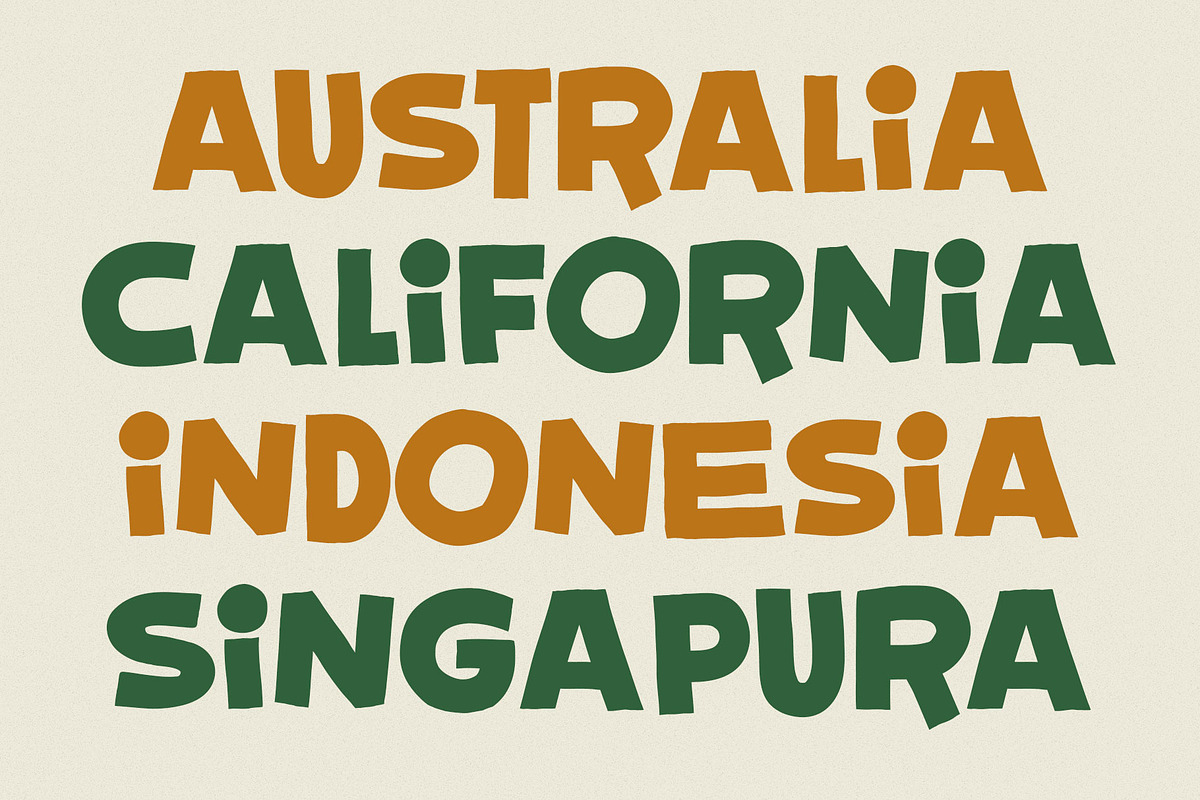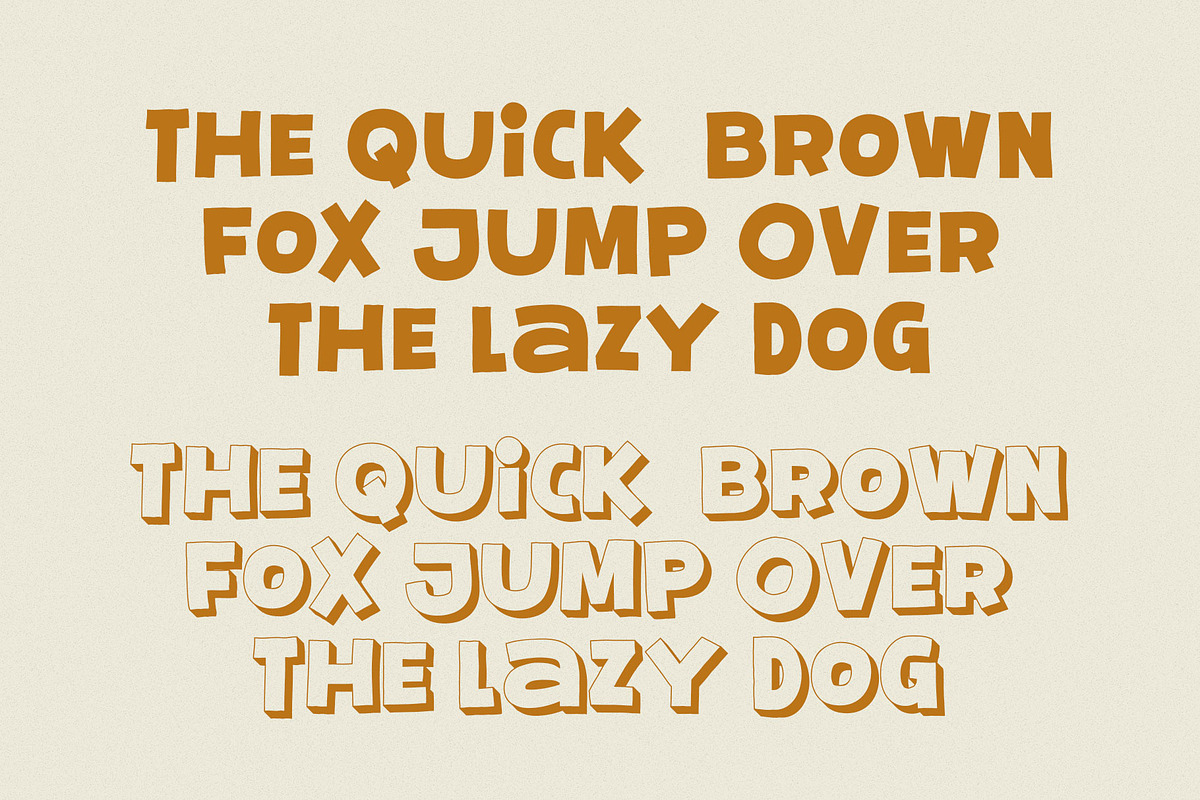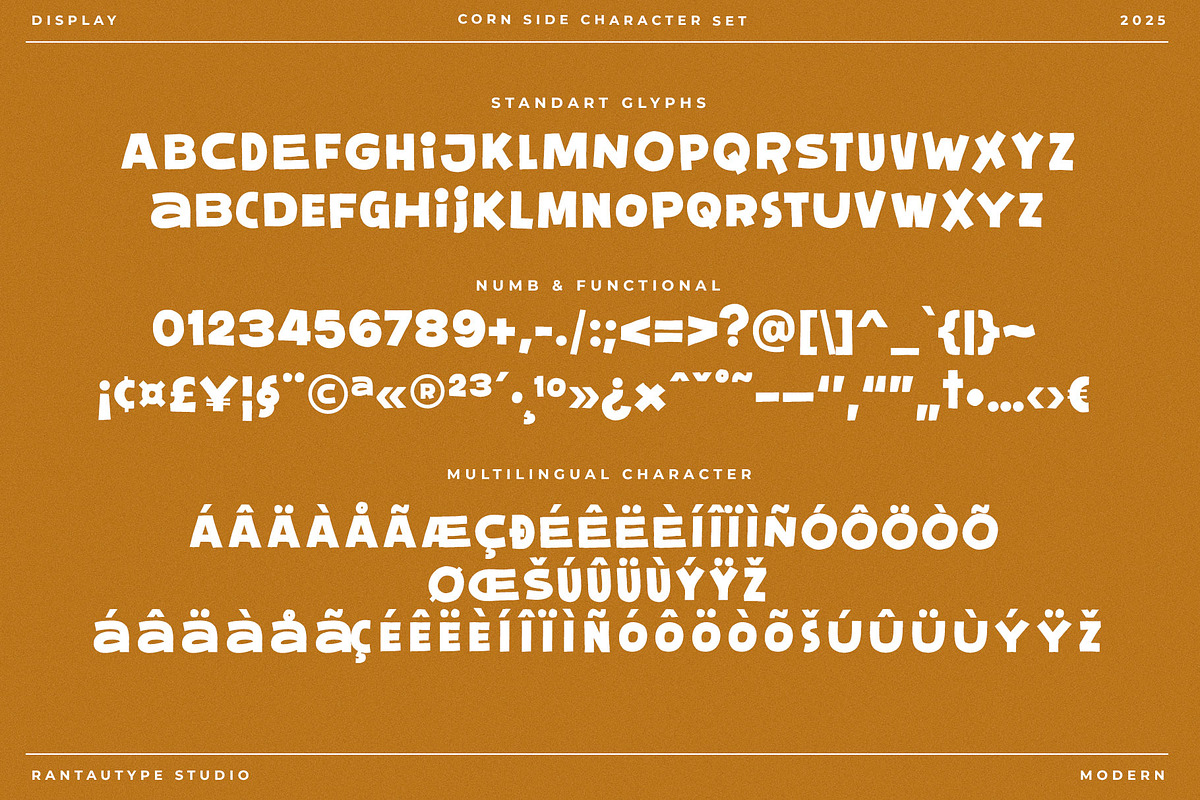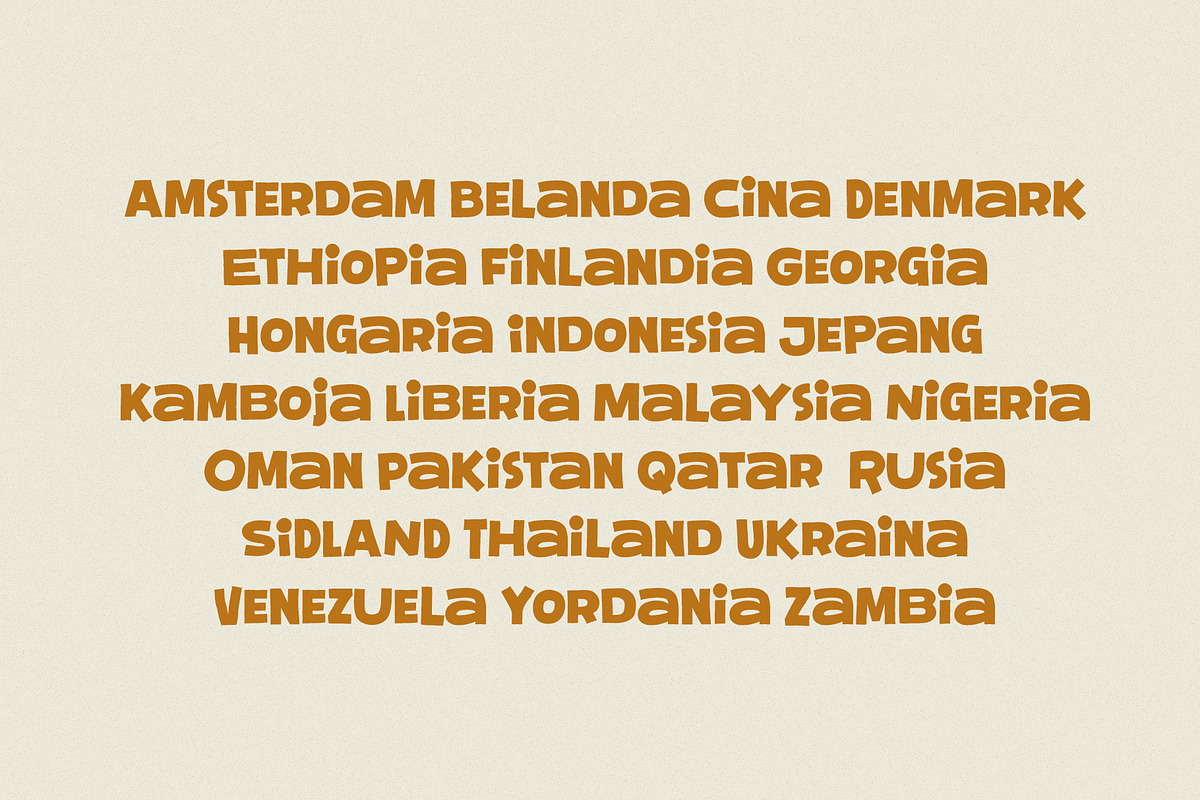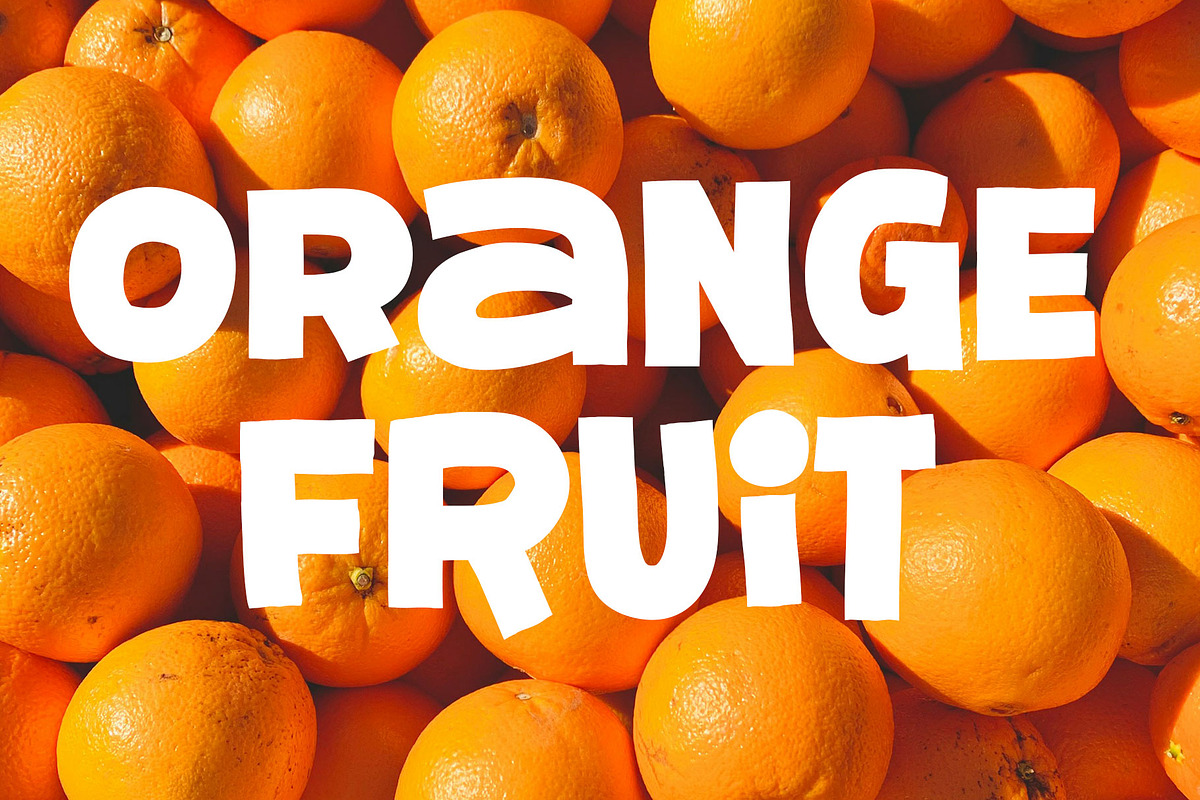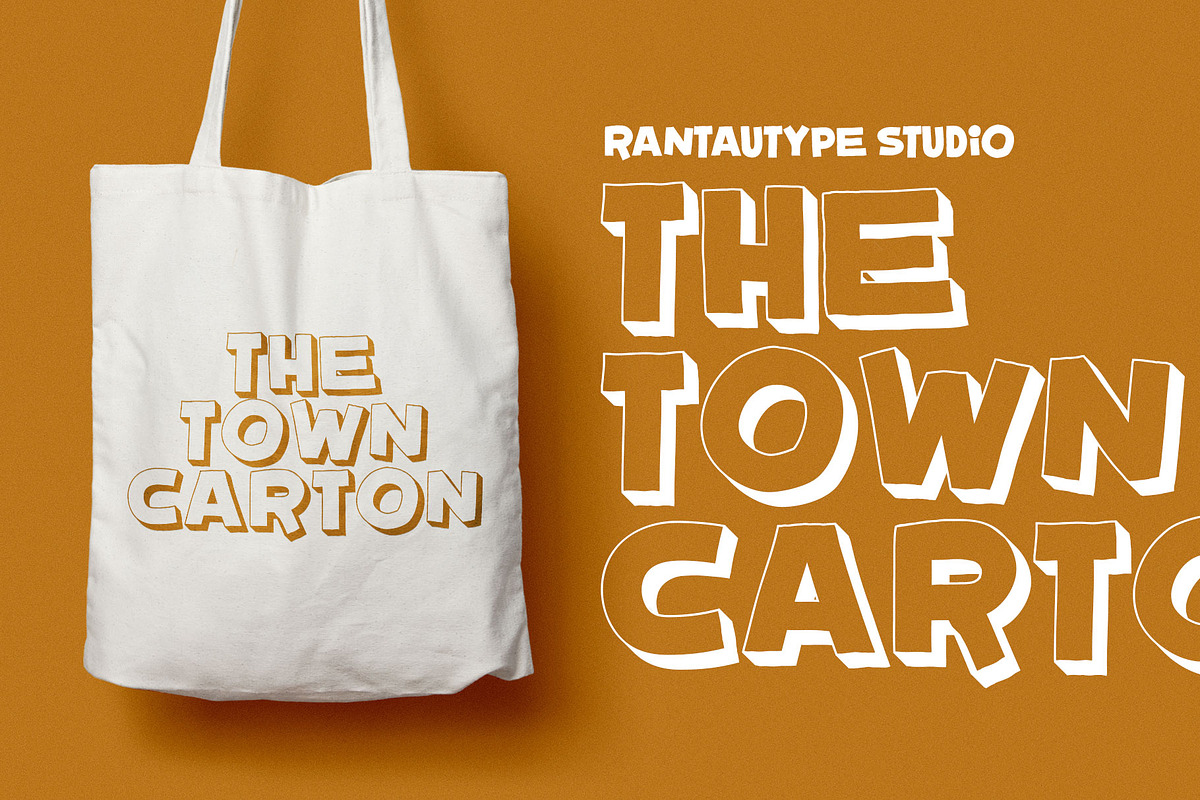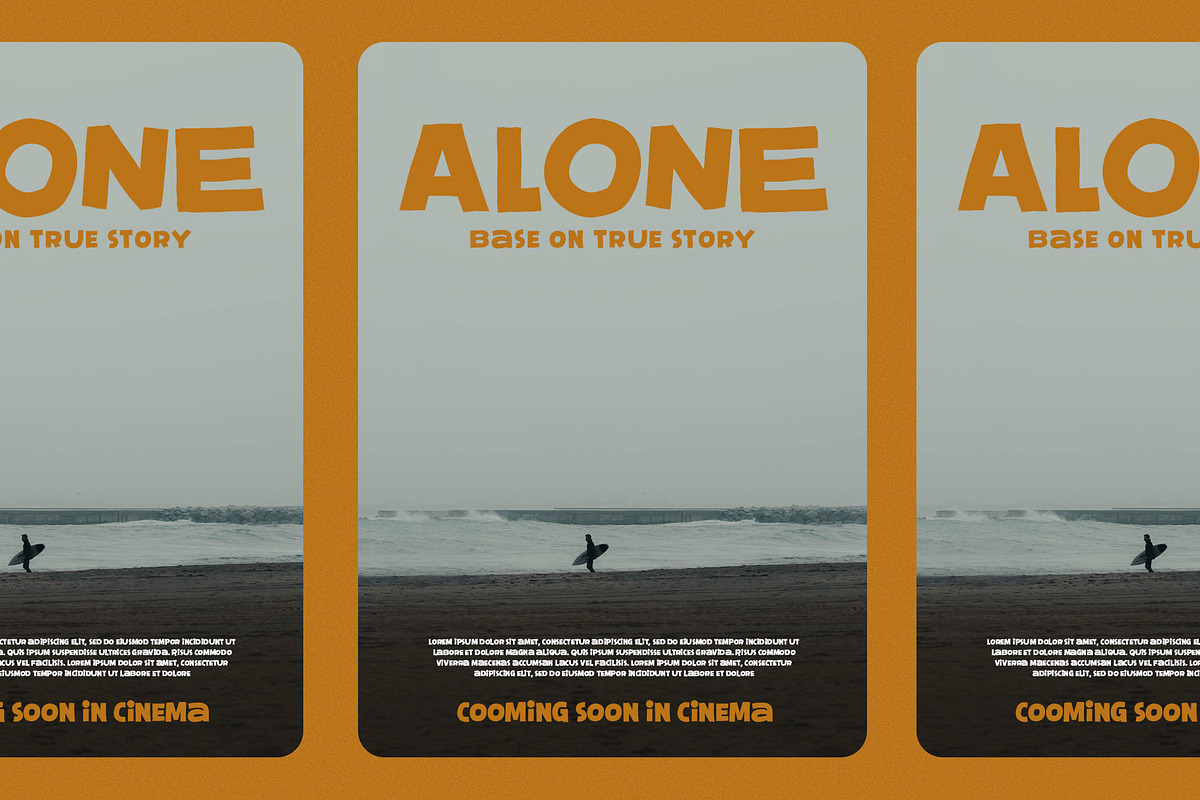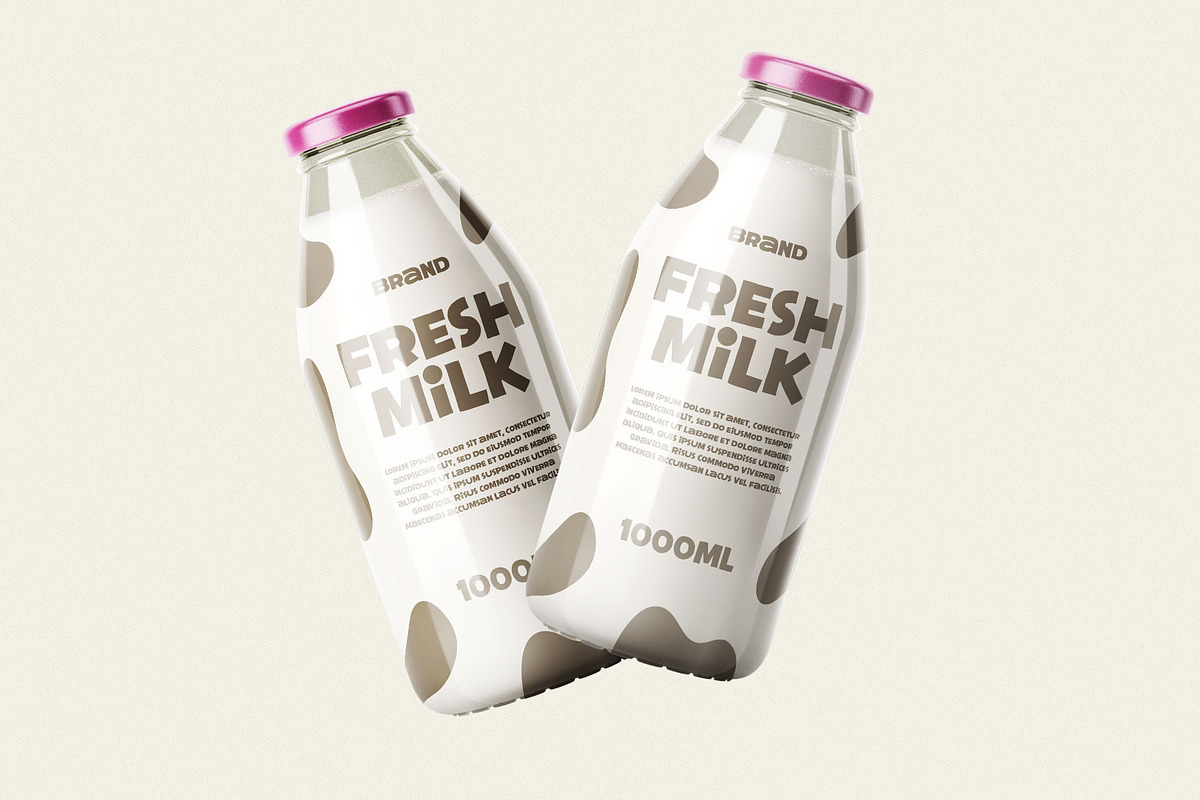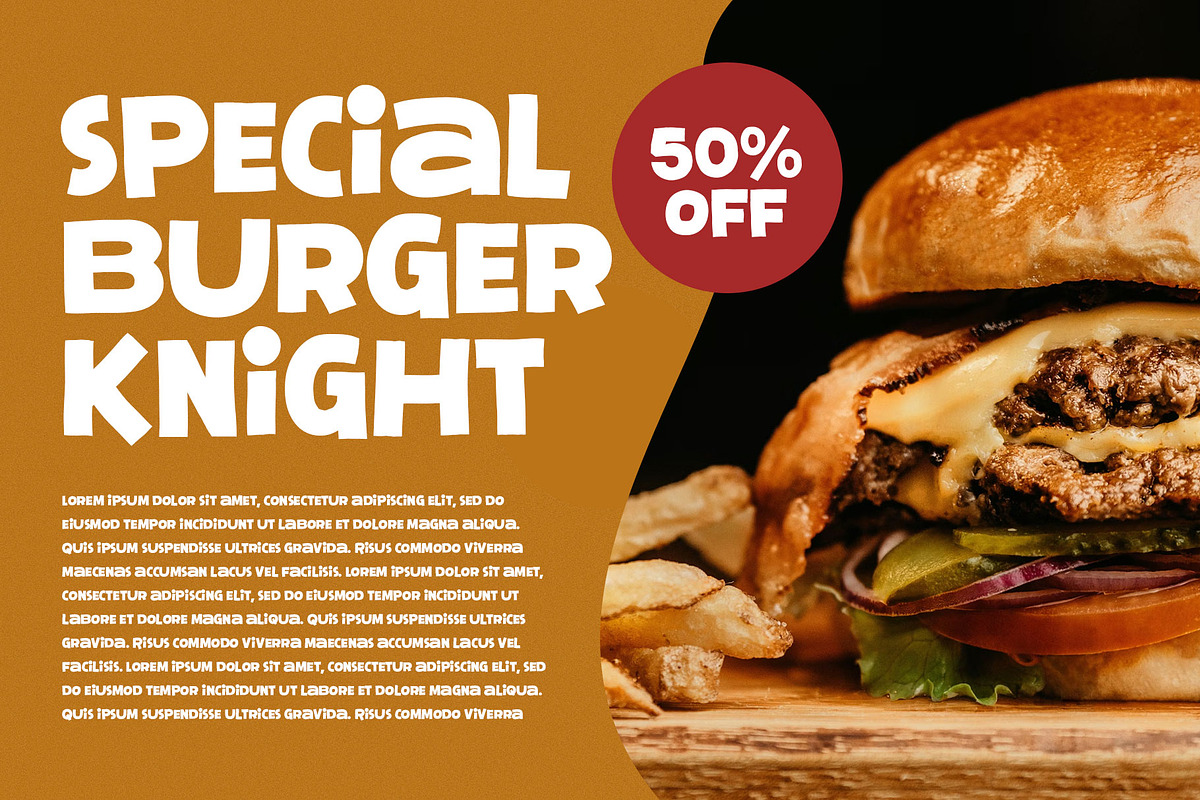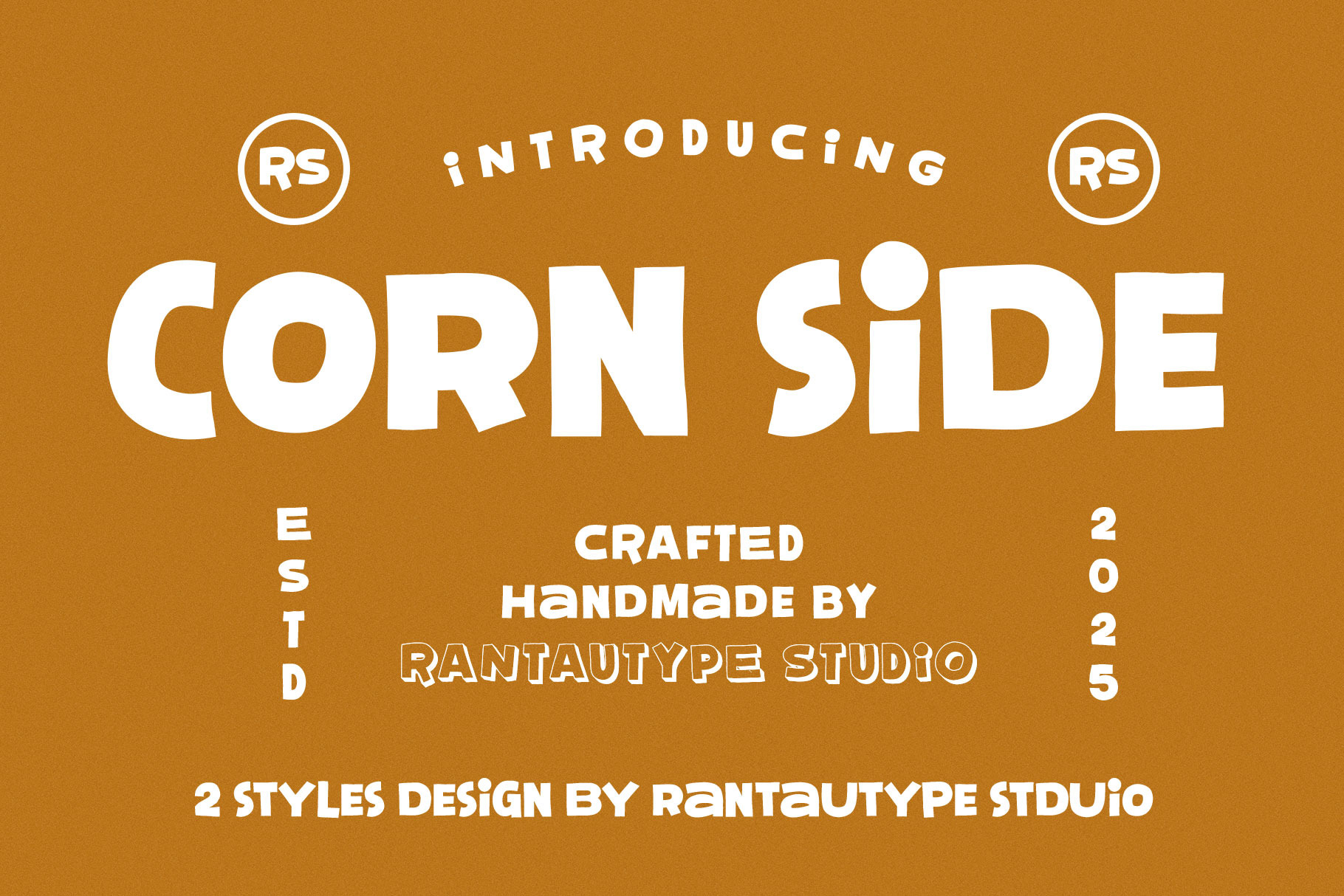
Corn Side Display Modern Font
Corn Side is modern display font made by rantautype studio. Corn Side is a perfectly choice for any creative endeavor, chic, lifestyle design such as logotype, advertisements, watermark on photography, stationery, branding project, display and magazine, invitation, corporate brand, product design, label, business project and many other project with funcy touch.
- Standart Glyphs
- Alternate and ligature
Fonts include Multilingual Character for: Afrikaans, Albanian, Asu, Basque, Bemba, Bena, Breton, Chiga, Cornish, Dutch, English, Estonian, Filipino, Finnish, Friulian, Galician, Gusii, Indonesian, Irish, Italian, Kabuverdianu, Kalenjin, Kinyarwanda, Luo, Luxembourgish, Luyia, Machame, North, Oromo, Portuguese, Quechua, Romansh, Rombo, Rundi, Rwa, Samburu, Sango, Sangu, Scottish, Gaelic, Sena, Shambala, Shona, Soga, Somali, Spanish, Swahili, Swedish, Swiss, German.